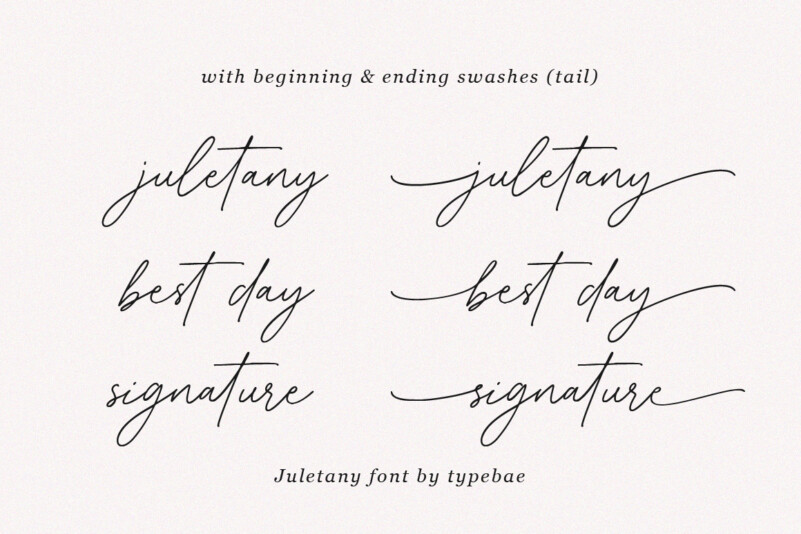
Juletany Font
Juletany Font is an exquisite handwritten signature script font that features elegant swashes at the beginning and end of each letter. It offers ligatures, allowing certain letter combinations to flow seamlessly for a more natural and authentic look.